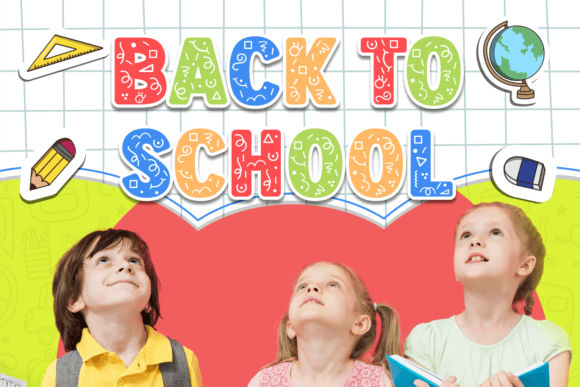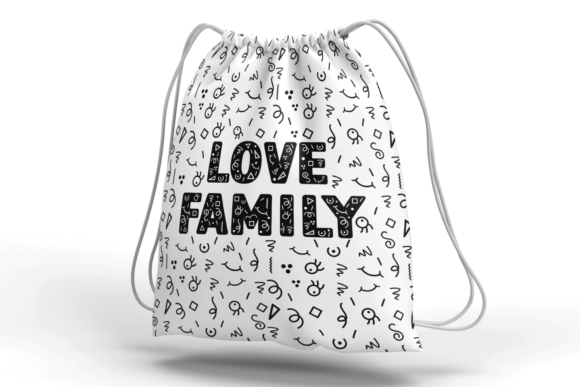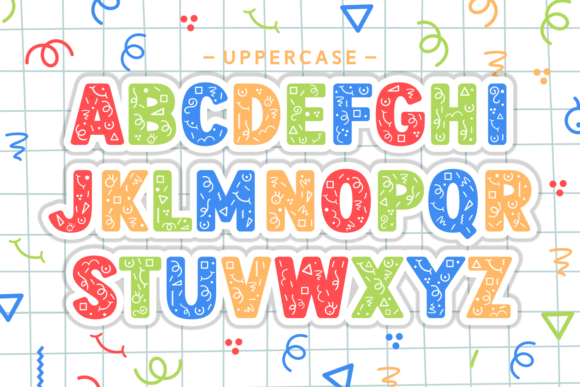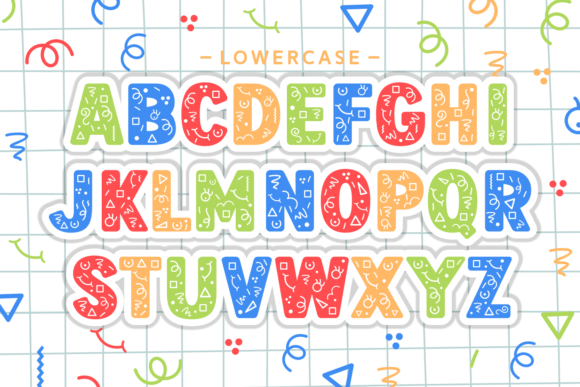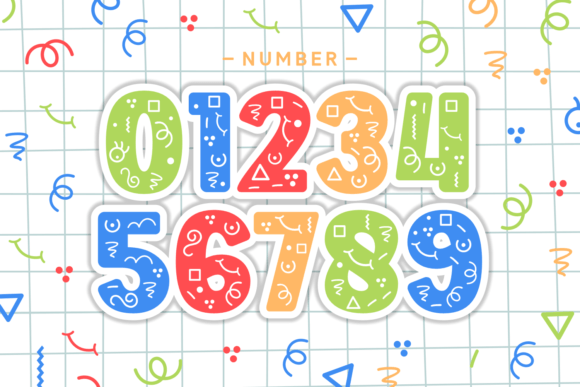
Introduction to Pattern Sketch Font
Have you ever found yourself rummaging through your craft box, searching for the perfect font to match your creative vision? I know I have! It’s that moment when you see your design come together, and you know it needs something extra to make it truly special. That’s where the Pattern Sketch Font comes in – a playful and quirky decorative font that adds a touch of whimsy to any project.
This high-quality font is perfect for designers who want to create engaging and interactive materials, such as children’s crafts, teaching materials, and book covers. With its transparent background and versatile design, it’s a valuable resource for anyone looking to add a personal touch to their creative project. The best part? It’s available for free download, making it an accessible design resource for designers of all levels.
- Unique, hand-drawn style that sets it apart from other fonts, adding a touch of personality to creative projects.
- Perfect for use in various design contexts, including branding, packaging, and editorial design.
I recently had the chance to work with the Pattern Sketch Font, and I must say it’s been a great addition to my design arsenal. This font is perfect for any creative project that requires a high-quality, modern aesthetic.
- High-quality design: The font is well-designed and visually appealing, making it perfect for a wide range of creative projects.
- Limited customization options: While the font is well-designed, I wish there were more customization options available to suit different design needs.
- Not suitable for all design styles: The Pattern Sketch Font may not be the best fit for more traditional or vintage design styles.
Overall, I’m impressed with the Pattern Sketch Font. It’s a great resource for designers who need a high-quality, modern font for their creative projects. While it may have some limitations, I believe it’s a valuable addition to any design library.
The Pattern Sketch Font is perfect for creative projects, including logos, brochures, posters, and presentations. It’s also a great resource for designers who want to add a touch of sophistication and elegance to their designs. With its high quality and transparent background, the Pattern Sketch Font is a valuable addition to any design toolkit.